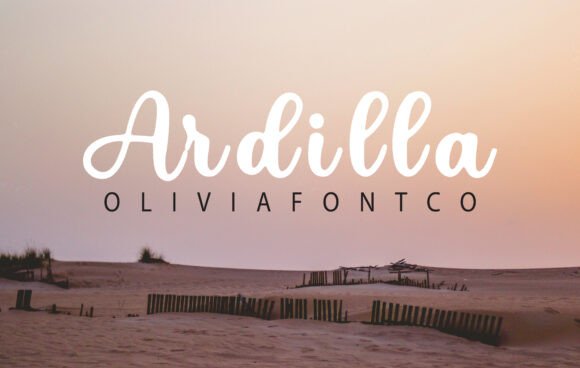
The Ardilla Font: A Romantic Touch for Your Creative Projects
I’ll never forget the time I was working on a wedding invitation design for a close friend. I had the perfect layout, the ideal color scheme, and a beautiful image to complement the text. However, I was stuck on finding the right font. I wanted something that would capture the essence of the special day, something romantic and elegant. That’s when I stumbled upon the Ardilla font. It was love at first sight! 💕
In this article, I’ll share with you why Ardilla font has become a favorite in my design toolkit, its features, and how to make the most of it in various design platforms.
What Makes Ardilla Font Special?
Ardilla font is an authentic handwritten font with a romantic touch, expertly designed to elevate your creative ideas. Its legibility and versatility make it perfect for a wide range of designs, from magazine headlines to social media posts, branding, wedding invitations, cards, and more.
• ✅ Romantic and elegant vibe, perfect for wedding-related designs and other special occasions
• ✅ Highly legible, making it suitable for both title and body text
• ✅ Versatile and adaptable to various design styles and themes
• ✅ Easy to read, even at smaller font sizes
While Ardilla font is exceptional, there are a few things to keep in mind:
• 🤔 Some users might find the font a bit too ornate for very casual or minimalist designs
• ⚠️ As with any script font, it may not be the best choice for very long body text, as it can be a bit tiresome to read
The Story Behind Ardilla Font: Designer Inspiration
Ardilla font was created with the intention of capturing the essence of handwritten elegance. The designer aimed to create a font that would evoke feelings of romance and sophistication, perfect for special occasions and creative projects. While the actual design process and inspiration might be shrouded in mystery, it’s clear that Ardilla font has become a beloved choice among designers and crafters.
Q: What type of designs is Ardilla font best suited for?
A: Ardilla font is versatile and can be used for a wide range of designs, including wedding invitations, magazine headlines, social media posts, branding, and more.
Q: Is Ardilla font easy to read?
A: Yes, Ardilla font is highly legible, making it perfect for both title and body text.